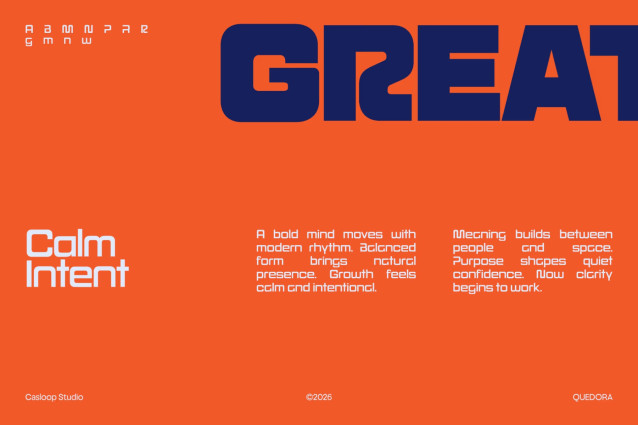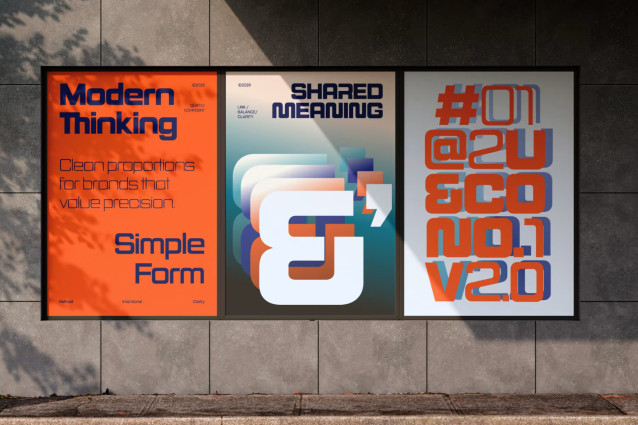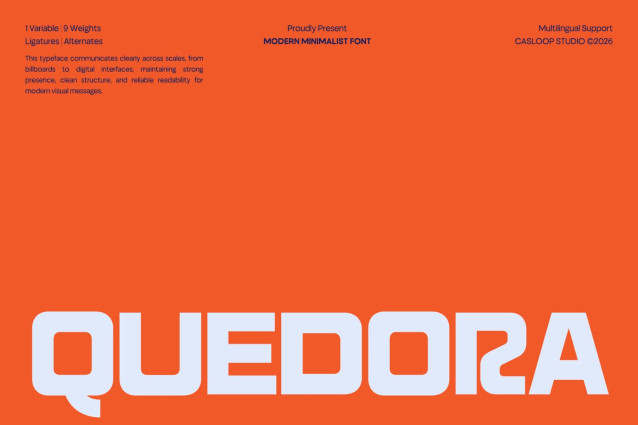
Quedora – Boxy Minimalist Font
Quedora is a modern minimalist font defined by clean internal cuts, open counters, and controlled curves, creating a clear, balanced, and confident visual voice. Designed with a flexible Thin to Black weight range and distinctive characters such as Q, R, A, W, M, and G, Quedora performs effortlessly across refined wordmarks, modern interfaces, and bold display headlines. It works as a reliable type system for brands that value clarity, precision, and quiet confidence.